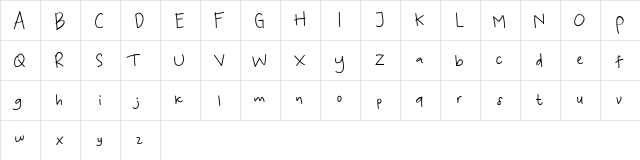
KoalaKumal Handwriting Regular
Design Context for KoalaKumal Handwriting Typeface
KoalaKumal Handwriting flows with the natural rhythm of handwritten lettering, making it ideal for designs that call for warmth and personal expression.
Font Pairing: Combine KoalaKumal Handwriting with a simple geometric sans for maximum contrast — the tension between flowing curves and clean structure is a classic typographic pairing.
Pro Tip: Use KoalaKumal Handwriting for short runs of text — names, titles, or taglines. Extended body copy in script faces tires the eye quickly.